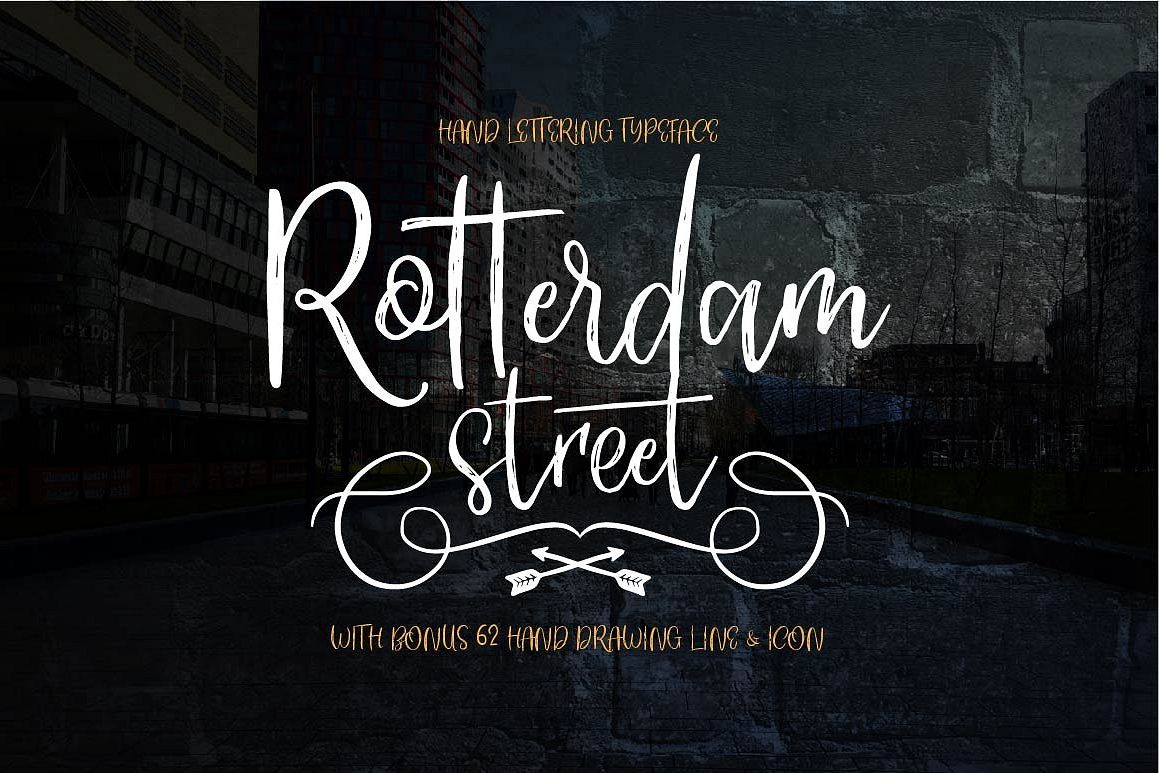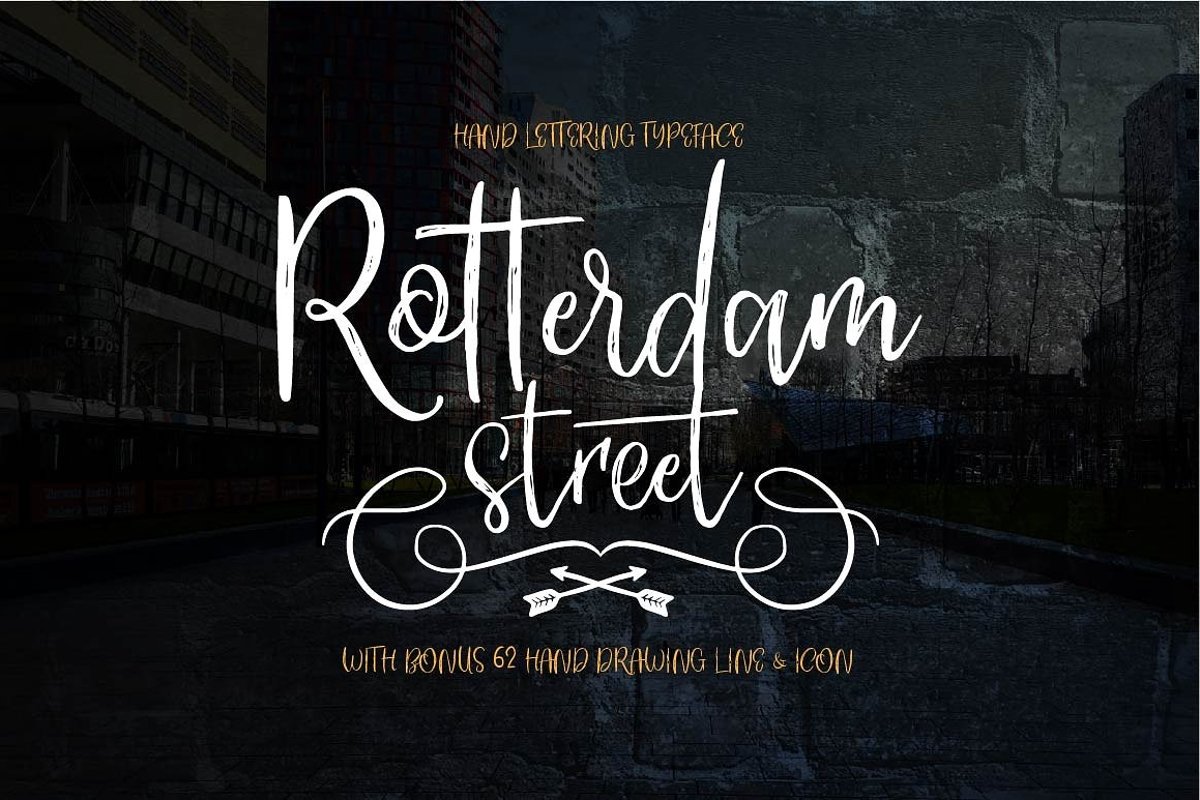
ROTTERDAM STREET
Rotterdam Stree
Rotterdam Street Alternates
Proudly presents our latest product Rotterdam Street.
I hope you are interested in this font,The fonts are great for product
logo,wedding card logo, Banner, Graphic design, clothing brand logo, and
much more.
Rotterdam Street Font equipped with :
• Uppercase,
• lowercase
• numeral
• punctuation
• International Glyphs
• alternates